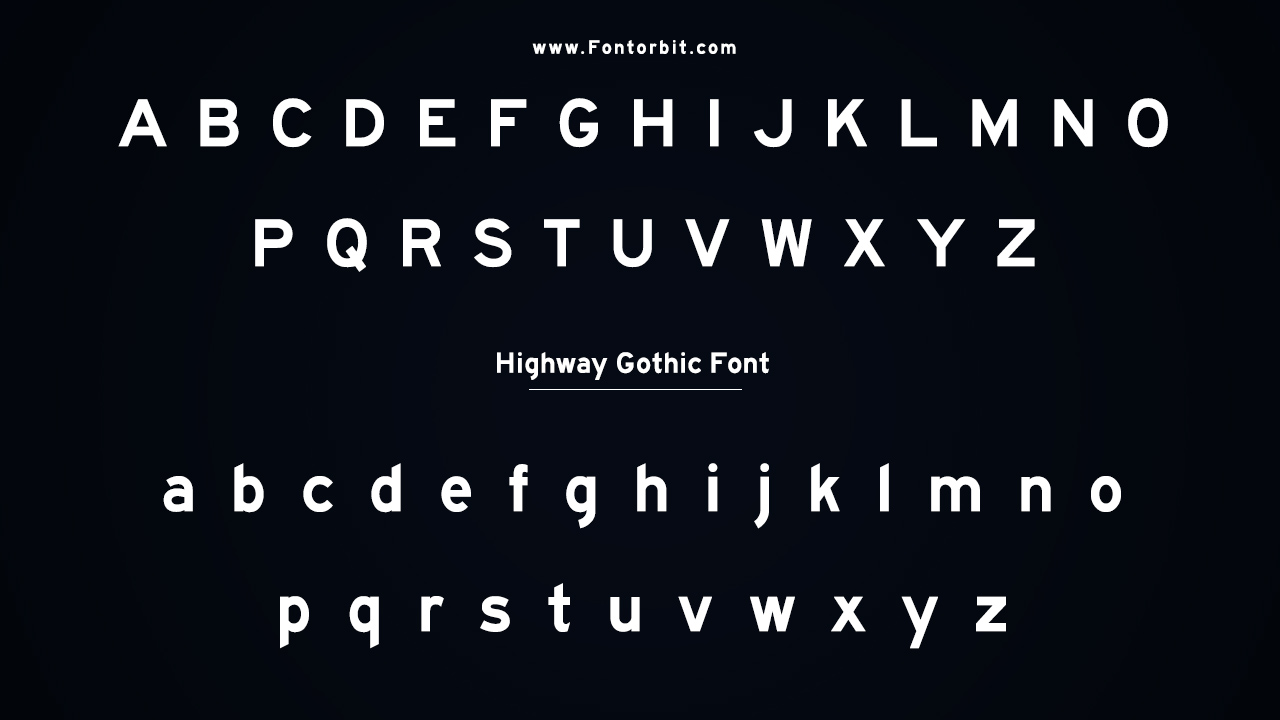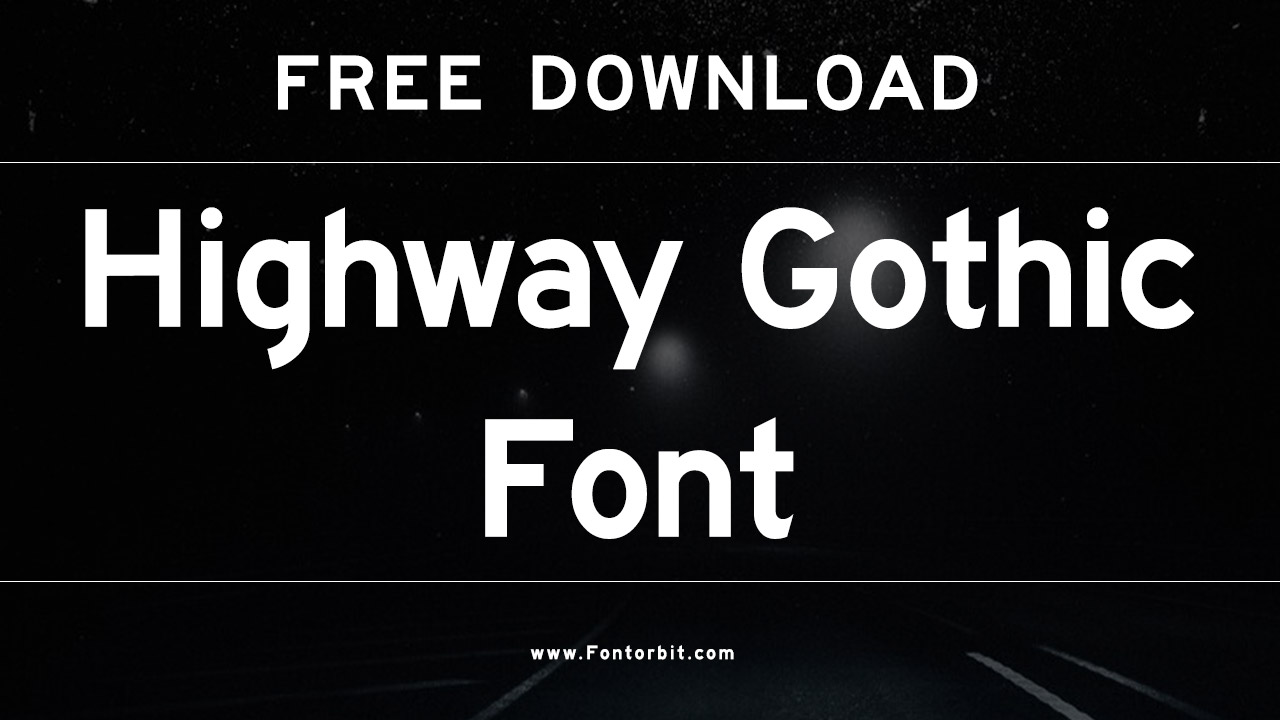
Highway Gothic is a sans serif font designed by the Federal Highway Administration (FHWA) in 1948. This font family has become synonymous with road signage in the United States and other countries.
The primary purpose of Highway Gothic is to ensure maximum legibility of road signs from a distance and at high speeds. The font features simple and clear letters and designers have crafted it to withstand different weather conditions.
This font family includes several variations like Highway Gothic Narrow, Highway Gothic Wide, and Highway Gothic Condensed. The design ensures clear visibility in highway signs across various road types and speeds.
- Designers created Highway Gothic as a sans serif font for road signs and highway signage.
- It is a part of the FHWA Series Fonts, which emphasize legibility for travelers.
- Several variants, such as Highway Gothic Narrow and Highway Gothic Wide, provide different weights and widths for varying signage needs.
Highway Gothic Font Information
Name | Highway Gothic |
Style | Sans serif font |
Designer | Federal Highway Administration |
Type | Typeface |
Highway Gothic Font Family Includes
- Highway Gothic
- Highway Gothic Condensed
- Highway Gothic Expanded
- Highway Gothic Narrow
- Highway Gothic Wide
Where Highway Gothic Is In Use
- Road signs across the United States, ensuring high-speed visibility
- Federal Highway Administration-approved signage for highways and interstates
- Highway signs for speed limits and directional guidance
- Street name signs in various states and countries
- Traffic control signs and wayfinding signage
- Highway Gothic Narrow is commonly used for narrower signage
- Highway Gothic Wide is used in larger, more visible road signs
- Used in road signage internationally, including in Canada and Australia
Highway Gothic Font Pearings Option
Here are some great font pairing options for Highway Gothic that can help balance its bold, geometric style with complementary fonts for various design contexts:
1. Modern Sans-Serif Pairings
These fonts provide a clean, contemporary look and work well when paired with Highway Gothic for body text or subheadings:
- Lato – A versatile sans-serif with a modern touch.
- Avenir – Known for its geometric style and subtle elegance.
- Roboto – Clean and highly legible, perfect for digital design.
- Open Sans – Simple and neutral, great for large blocks of text.
- Helvetica – A classic sans-serif that pairs seamlessly with bold fonts like Highway Gothic.
2. Serif Font Pairings
For a more traditional or sophisticated look, pairing Highway Gothic with serif fonts can add a sense of refinement while still maintaining readability:
- Georgia – A warm and classic serif font that balances boldness with elegance.
- Times New Roman – A widely recognized serif font with high readability.
- Baskerville – Known for its refined appearance, ideal for more formal designs.
- Garamond – Elegant and timeless, with a slightly softer feel compared to other serif fonts.
3. Display Fonts
If you’re designing for a high-impact project (e.g., posters, logos, or advertisements), display fonts can complement the boldness of Highway Gothic:
- Frank Ruhl Libre – Bold and impactful, a great complement to Highway Gothic.
- Bodoni – A stylish, high-contrast serif that contrasts well with the geometric shapes of Highway Gothic.
4. Slab Serif Font Pairings
For a stronger, more rugged design aesthetic, slab serifs work well with Highway Gothic:
- Rockwell – A strong, bold slab serif that complements the industrial feel of Highway Gothic.
- Courier New – A typewriter-style font that offers a vintage look and contrasts nicely with Highway Gothic.
5. Script Fonts
For a touch of elegance or a more decorative effect, pair Highway Gothic with script fonts for headings or special text:
- Dancing Script – A fun and flowing script font that can add personality to designs when used sparingly.
- Great Vibes – Elegant and refined, great for special call-outs or headers.
6. Retro Fonts
Pair Highway Gothic with retro-style fonts for a nostalgic, vintage feel:
- Bebas Neue – A condensed sans-serif with a strong retro vibe.
- Impact – Bold and effective, perfect for making a statement alongside Highway Gothic.
Highway Gothic is not available on Google Fonts, but similar fonts like Interstate may be used.
7.What Are Some Fonts Similar To Highway Gothic?
Fonts similar to Highway Gothic include Franklin Gothic, Interstate, and Boddrex Font.
8.What Is The Purpose Of The Lowercase Letters In Highway Gothic?
The lowercase letters are used to enhance road signage readability, especially on large freeway signs.
9.What Type Of Font Is Highway Gothic?
Highway Gothic is a sans serif typeface designed for signage with an emphasis on clarity and legibility.